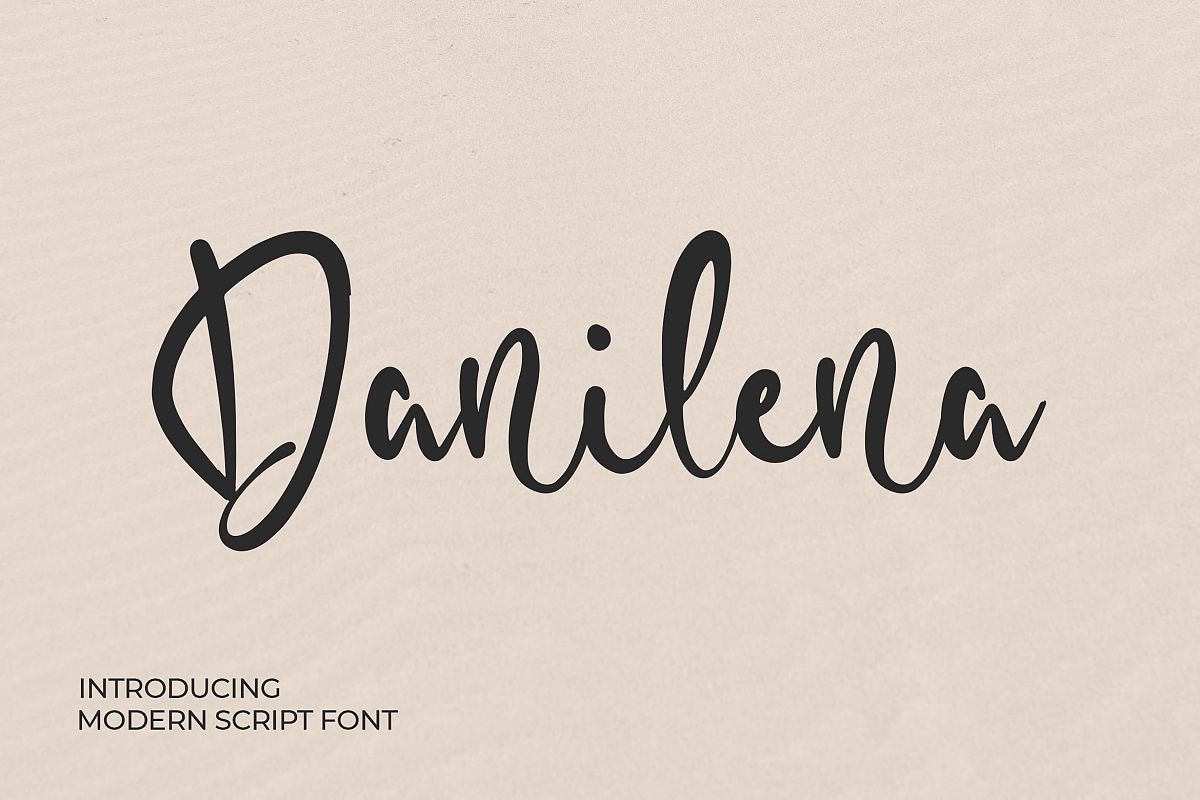
Danilena - Modern Script Font
Introducing of our new product the name is Danilena Modern Script Font. Danilena inspired by modern calligraphy this font is a fun theme very good for signature, poster, fashion, wedding, branding etc
MULTILINGUAL ACCENT :
ŽžŠŒšŸÀÁÂÃÄÅÆÇÈÉÊËÌÍÎÏÐŁÑÒÓÔÕÖØÙÚÛÜÝßàáâãäåæçèéêëìíîïłñòóôõöøùúûüýÿ